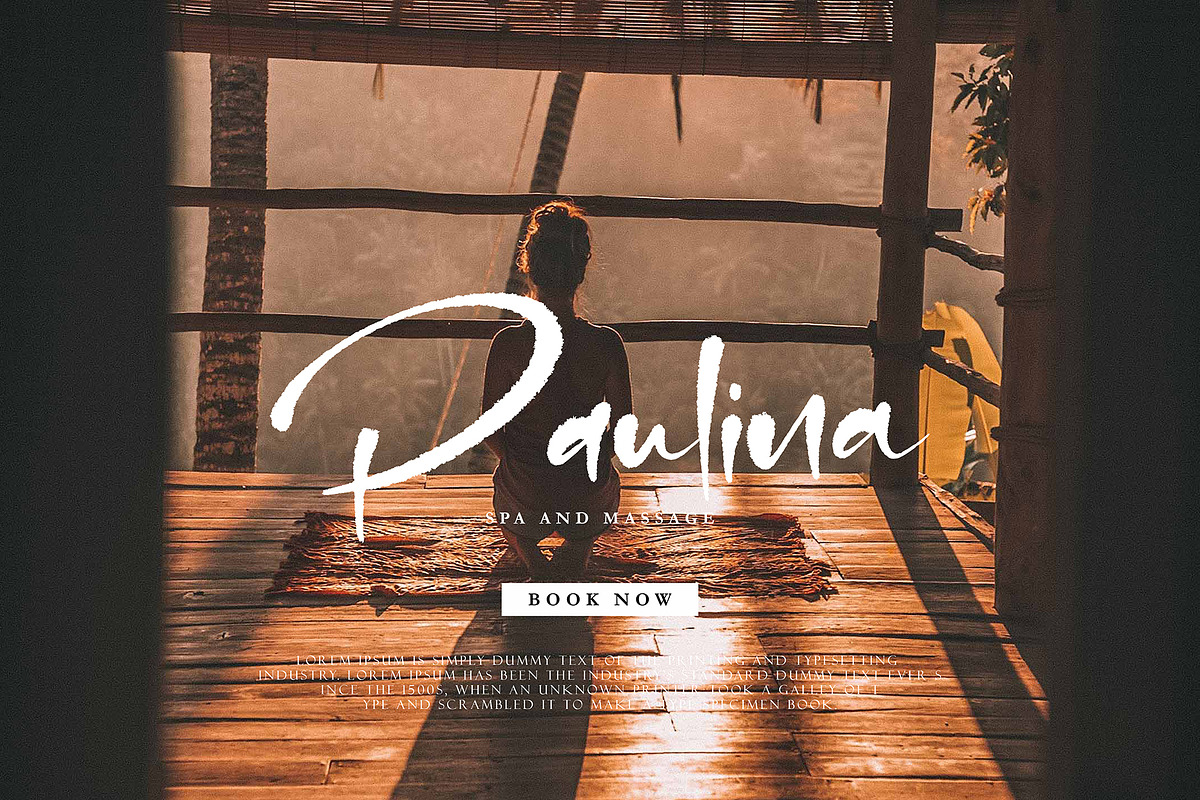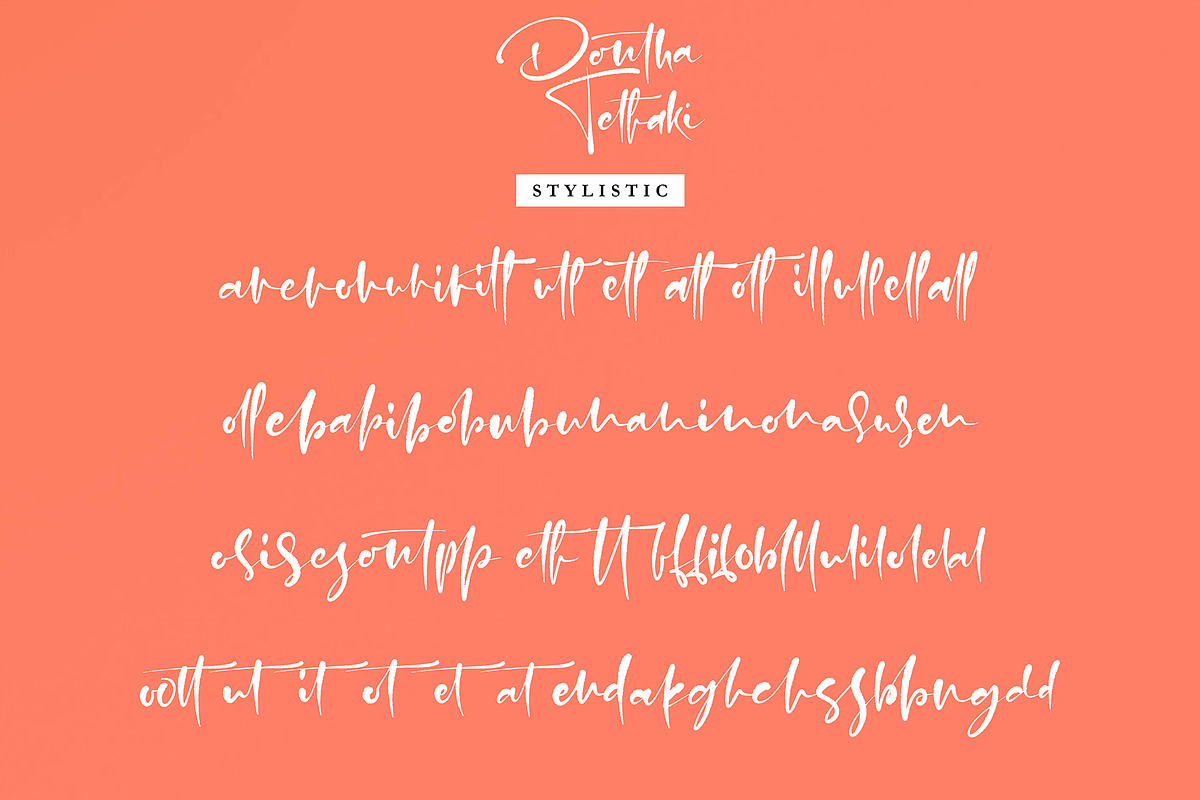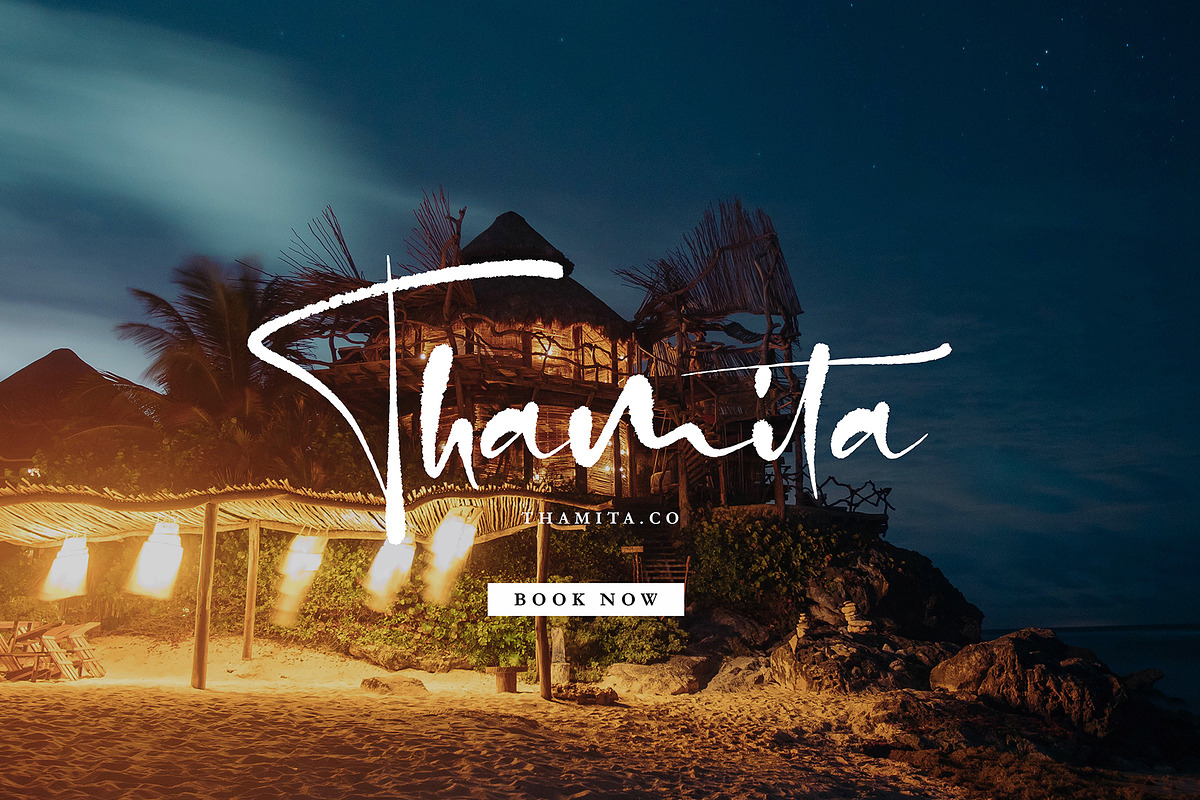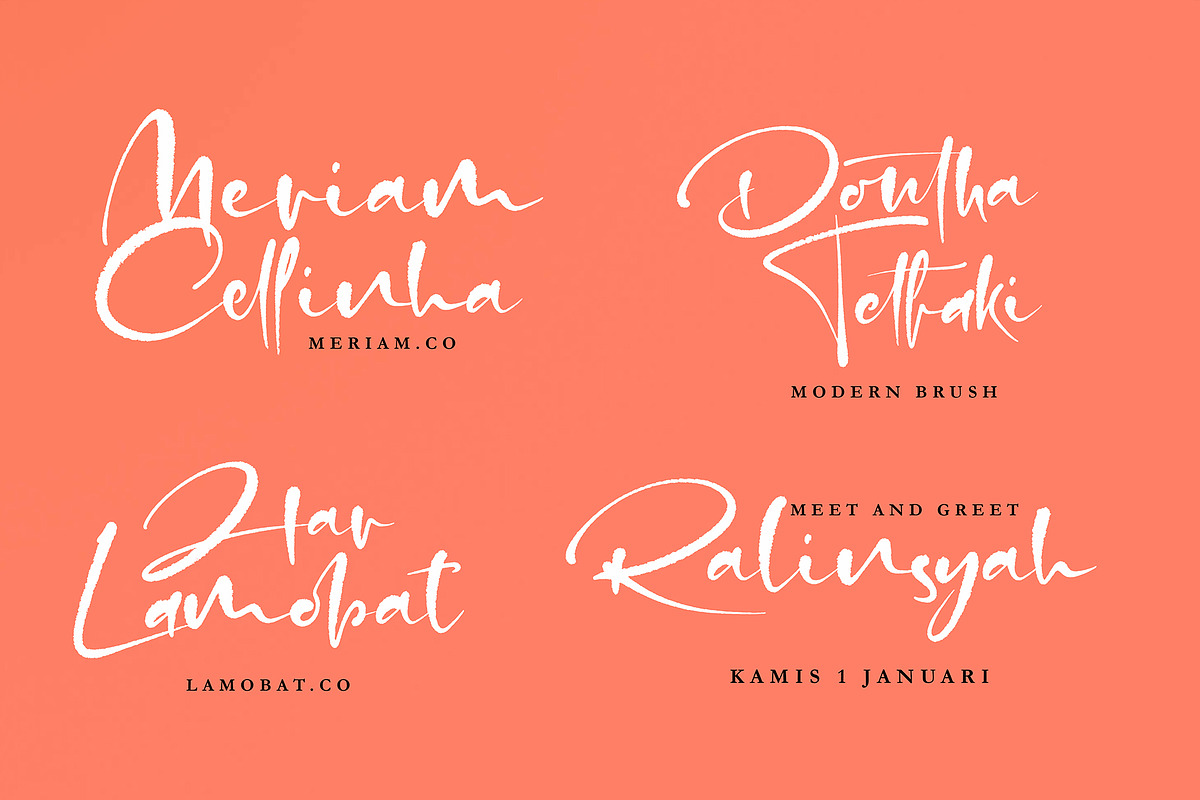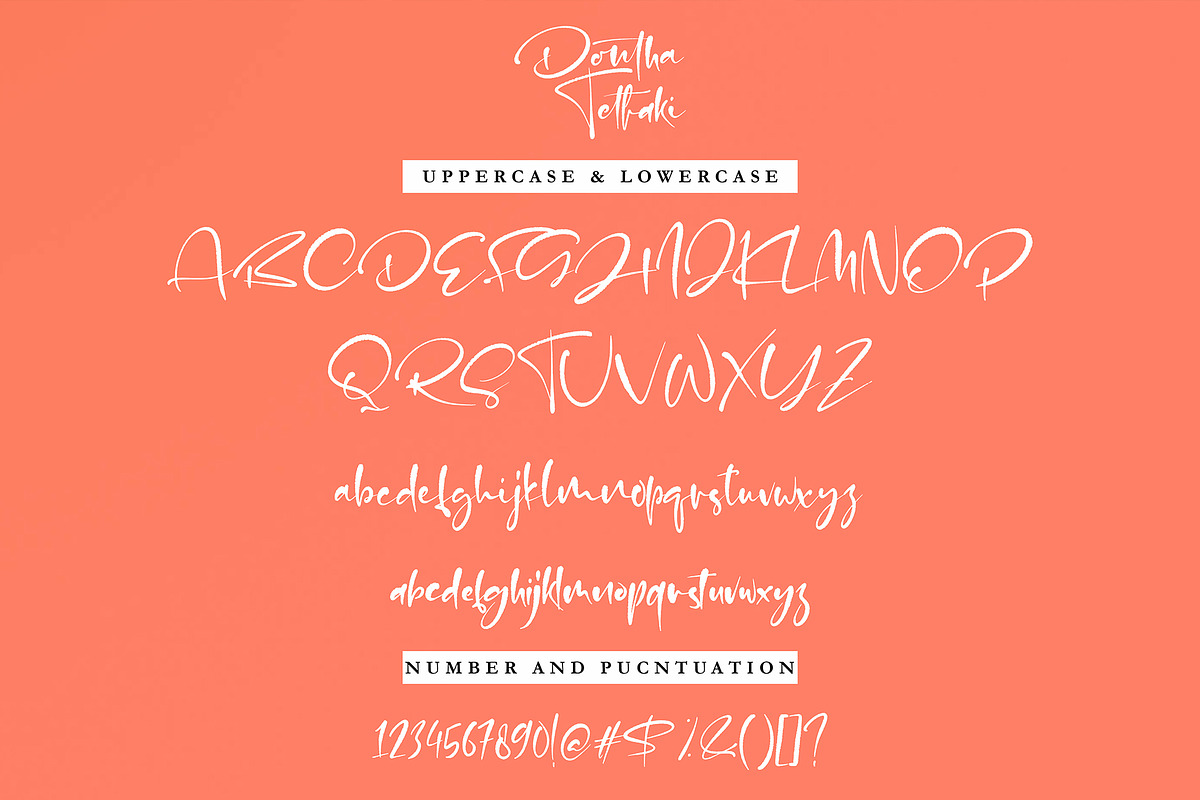
Dontha Tethaki
Dontha Tethaki font with brushs style handwritten, this font will perfect for many different project ex: quotes, logo, blog header, poster, banding, fashion, apparel, letter, invitation, stationery, etc...